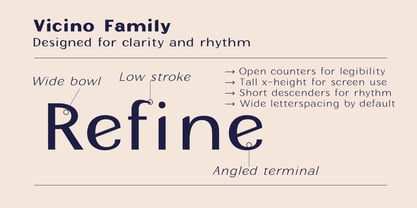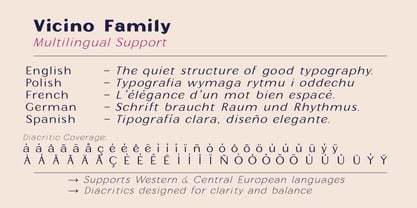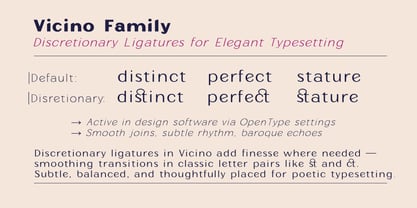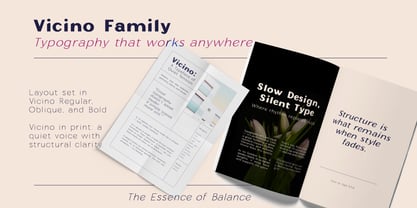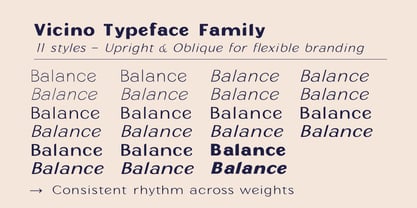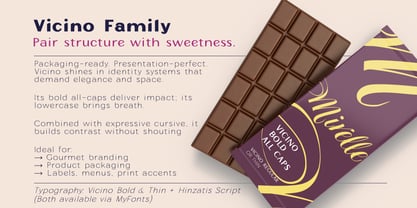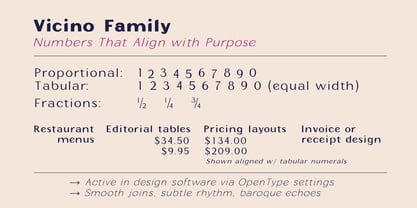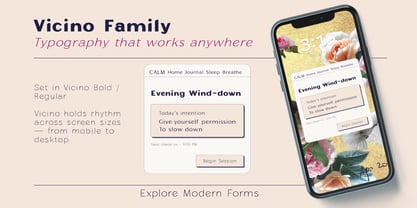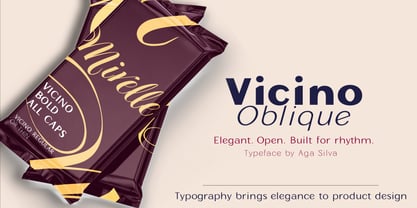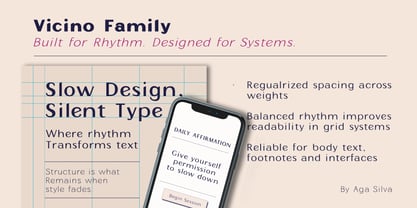
Vicino
Vicino Font Family was designed by Aga Silva and published by Aga Silva. Vicino contains 25 styles family package options.
Vicino means “neighbor” in Italian — someone close, familiar, and effortlessly helpful. Just like its name, Vicino is an approachable type family that delivers quiet strength and clarity wherever it’s used.
This family includes 25 fonts (upright and oblique styles), each with over 820 glyphs, covering extended Latin language support, including Vietnamese. Built for rhythm and clarity, Vicino brings refined simplicity to headlines, UI interfaces, editorial layouts, and packaging systems.
Whether used in tight grids or expressive headlines, Vicino balances geometric calm with human warmth. Its open counters, wide spacing, and low contrast strokes make it both screen-friendly and print-polished.
IDEAL FOR:
• Branding & visual identities
• Editorial & magazine design
• Mobile apps and UI layouts
• Gourmet packaging & print accents
• Typographers who appreciate structural rhythm and elegant detail
FEATURES
• 25 styles: Thin to Black + matching Obliques
• Extended Latin support (incl. Vietnamese)
• Standard & discretionary ligatures (e.g., st, ct)
• Proportional and tabular figures
• Basic fractions and case-sensitive punctuation
• Designed for display, editorial, UI, and packaging